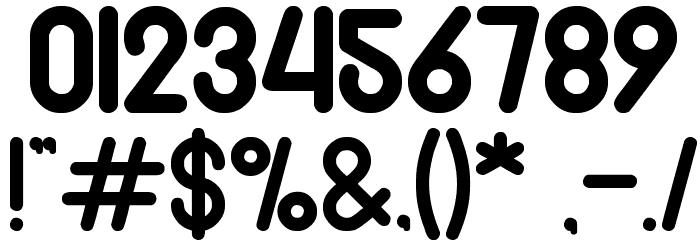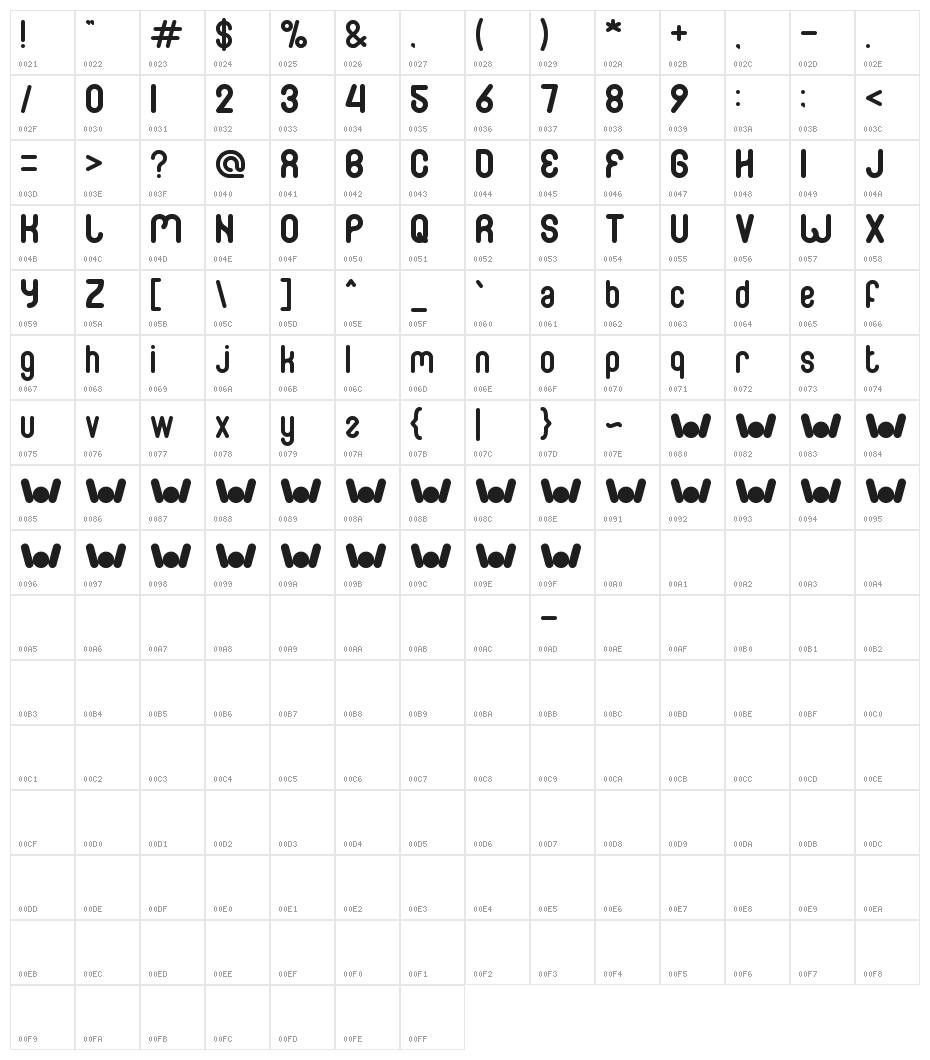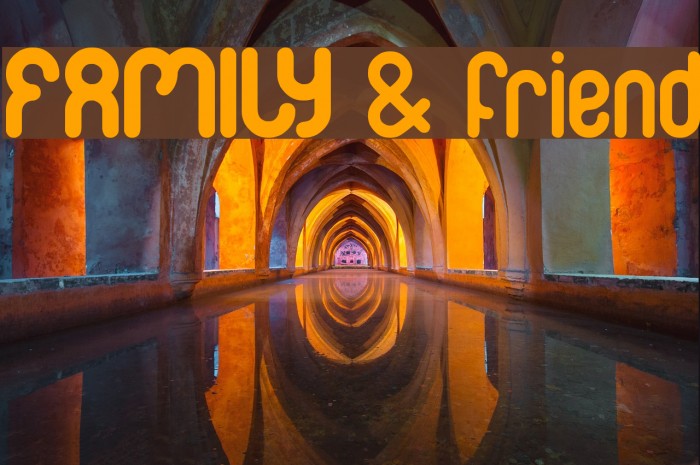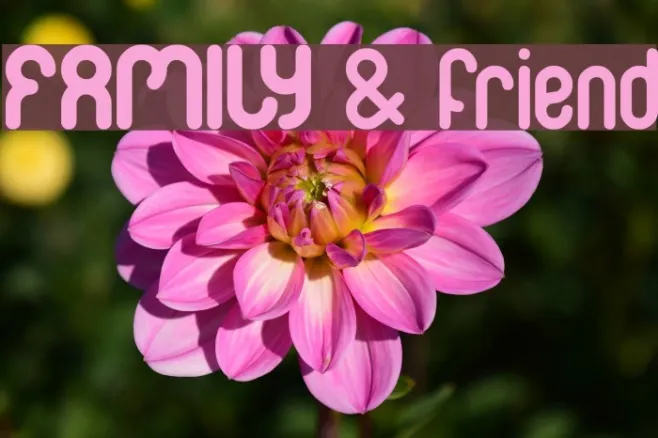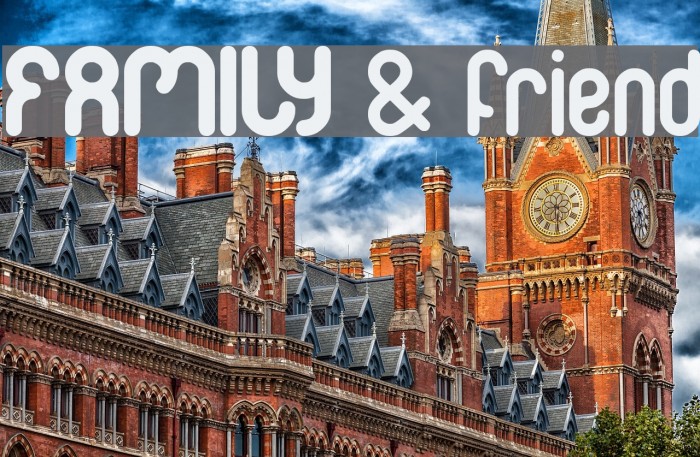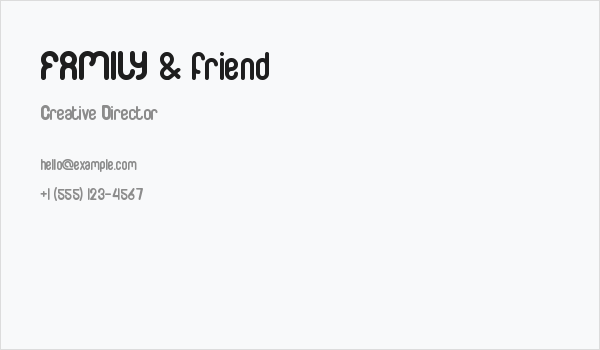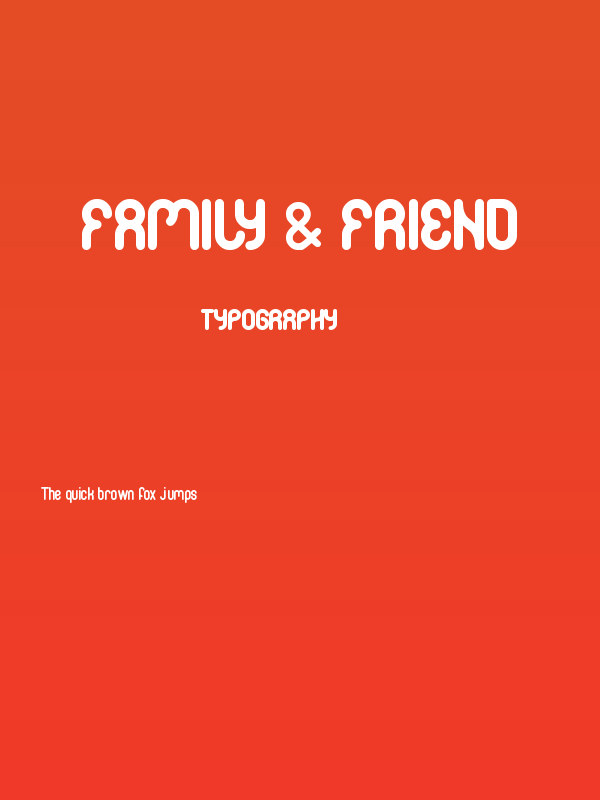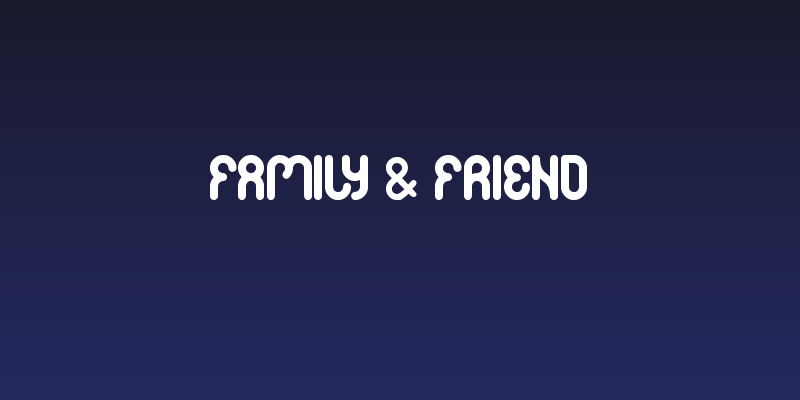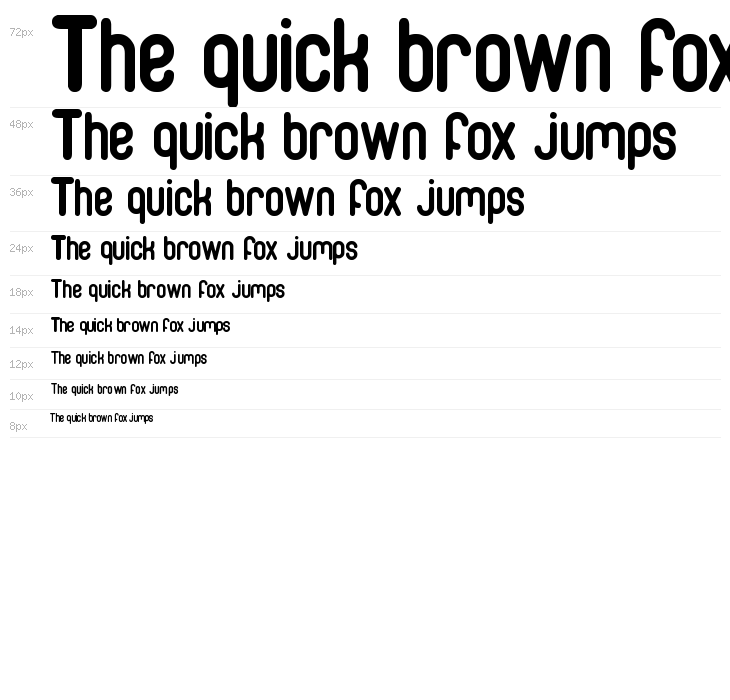
FAMILY & friend Font
FAMILY & friend Description
This font features a playful and rounded design, characterized by its bold and smooth curves. The letters are uniformly thick, giving it a consistent and friendly appearance. The rounded terminals and lack of sharp edges contribute to its approachable and informal style. The numerals and special characters maintain the same rounded aesthetic, ensuring a cohesive look across all glyphs. The overall design is modern and slightly whimsical, making it suitable for projects that require a touch of fun and creativity. Its readability is enhanced by the even spacing and clear distinction between characters.
Proposed ProjectsIdeal for children's books, playful branding, casual invitations, and creative posters.